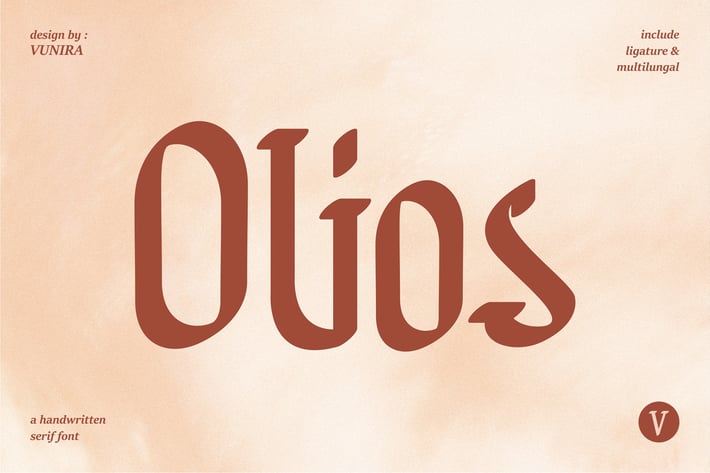
Olios | Handwritten Serif Font
Olios | Handwritten Serif Font with a calligraphy style, So beautiful on invitation like greeting cards, branding materials, business cards, quotes, posters, and more!